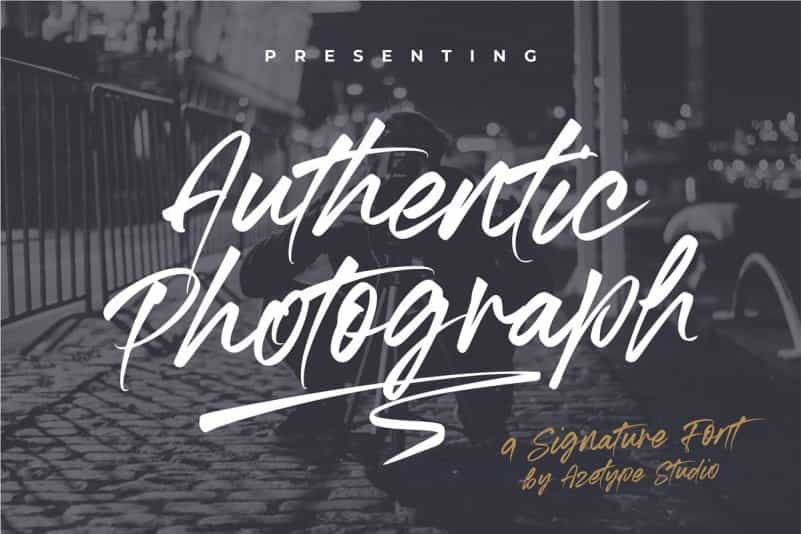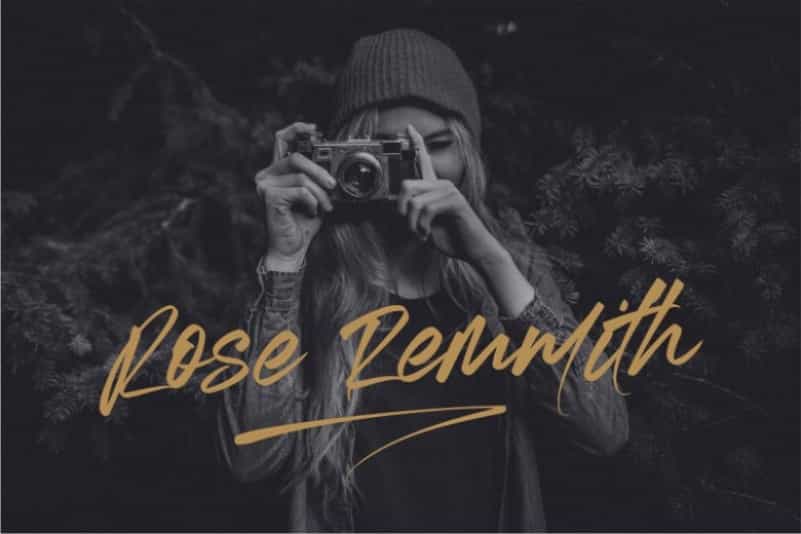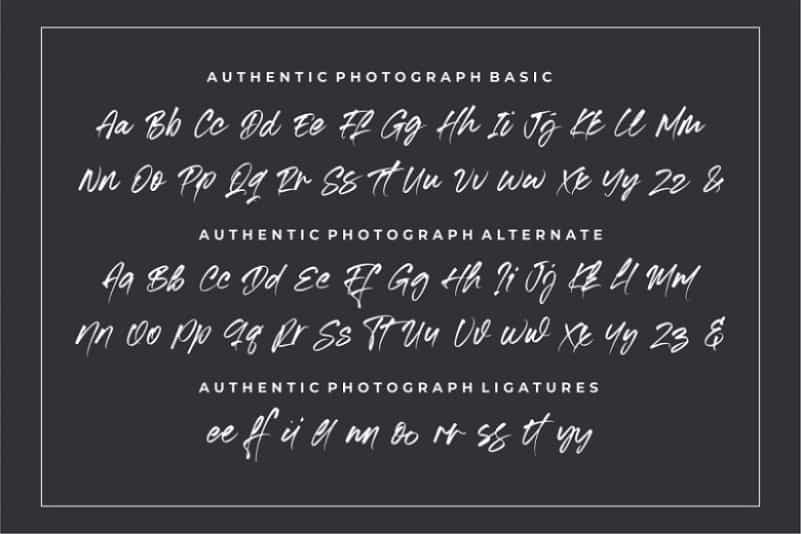
Discover Authentic Photograph Signature Font, part of the Calligraphy Handwritten collection—a versatile and unique font perfect for adding a personal touch to your projects. Download it for free and enjoy crafting designs with style, from invitations to social media posts. This font is available exclusively for personal use, giving you the freedom to create without limits. Unlock your creativity with Authentic Photograph Signature Font today!
Here is Authentic Photograph Font, a font that captures the spirit of style to the letter. Each stroke in this font has been meticulously designed to mimic the look of handwriting ensuring a blend of glyphs in every use. Our goal, in creating this font was to capture a sense of fluidity that imparts a feel when utilized.